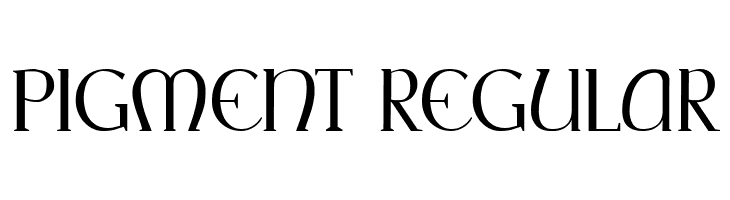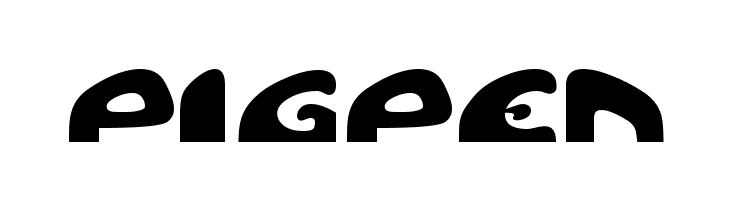
• Pigment Regular Fuentes
A modern serif font with high contrast and sharp serifs.
• Pigopago-Regular Fuentes
A modern, geometric font with a futuristic and structured design.
• Pigpen Fuentes
A playful, bold font with rounded, cartoonish characters.
• PigPenCipher Fuentes
• PIGSTY Fuentes
A playful, bold font with rounded, cartoon-like characters and whimsical pig faces.
• PIGZ_KG Fuentes
A playful font with cartoon pig illustrations integrated into each character.
• Pijamas Fuentes
A playful, hand-drawn font with bold outlines and a whimsical style.
• PIJL Fuentes
( CROLrene )
An artistic font with thin, elongated strokes and a hand-drawn appearance.
• Pika Pika Fuentes
• PikaPika Fuentes
( Fonts by Des Gomez )
A playful, handwritten font with a casual and friendly style.